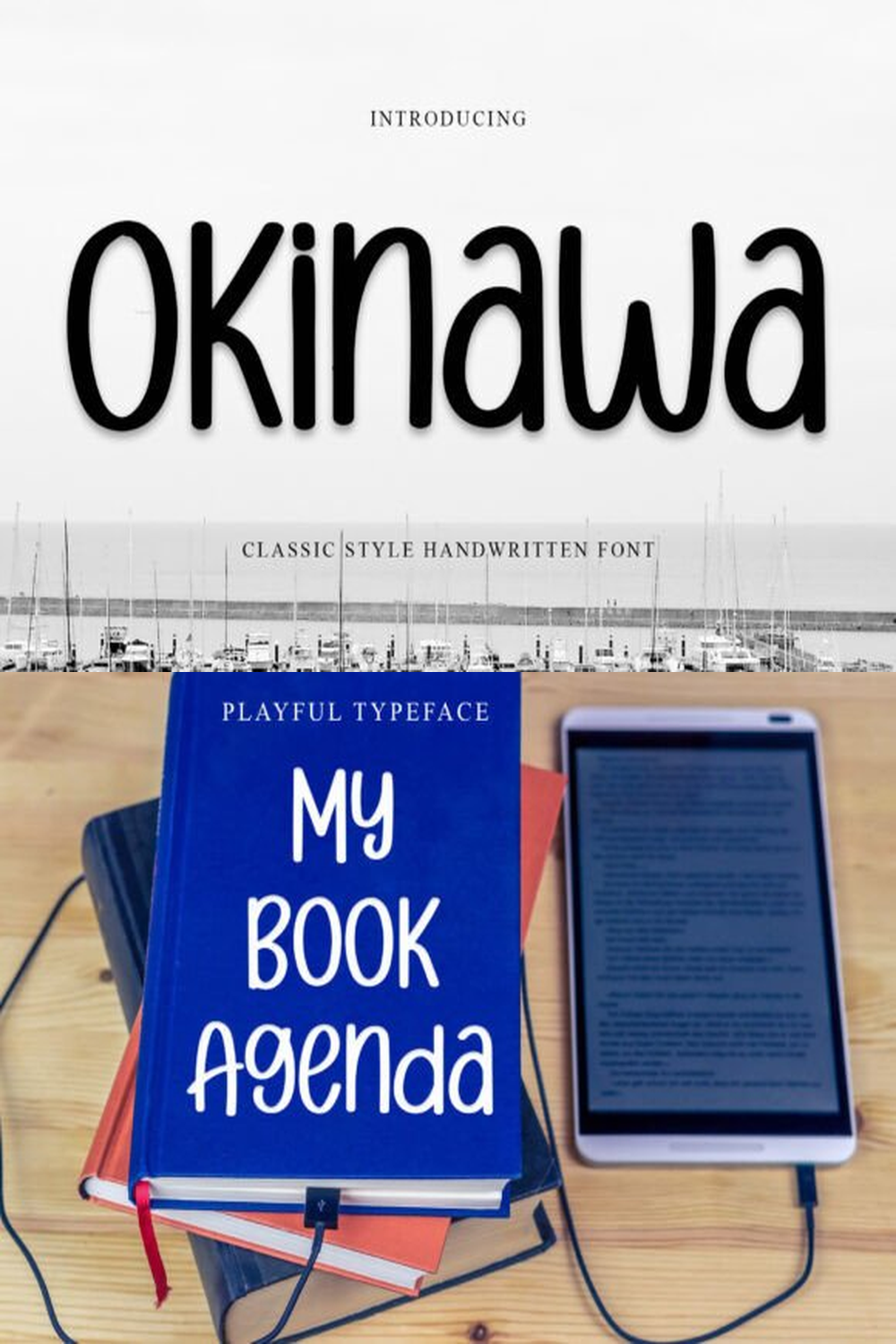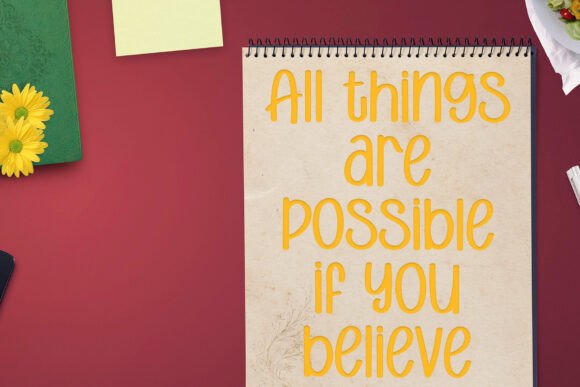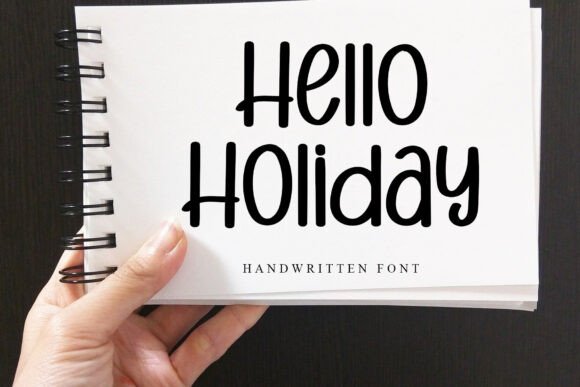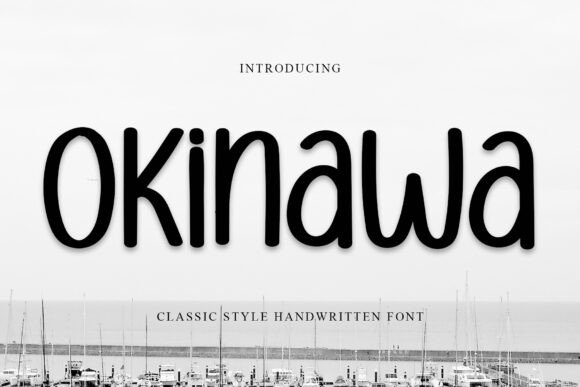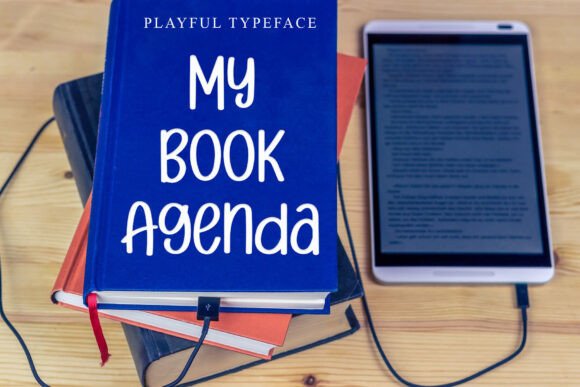
Okinawa Font
About the Okinawa Font
The wait is over! The incredible Okinawa Font is now available for your design toolkit. Okinawa is a unique and elegant font specially designed just for you. This font is made with a professional hand touch and is perfect for your projects. This font is very suitable for use in your work projects, all greeting cards from wedding invitation cards, birthdays, all types of parties. This font is also very suitable for use in your creative ideas for school assignments or other important events. Apply this font with your creative ideas to make it look better. This font is very carefully crafted and it is accessible with all glyphs without any additional application.